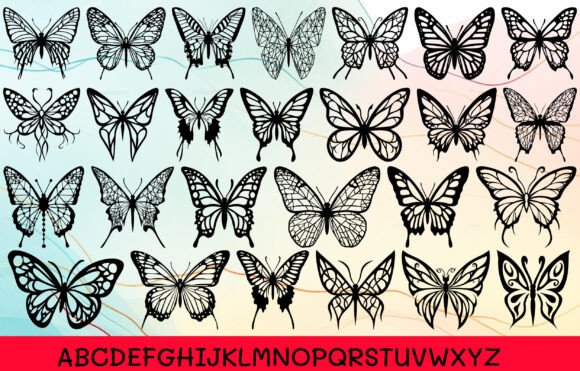
The Magical World of Butterfly Font
Have you ever been in the middle of a design project, and suddenly, you just can’t seem to find the right font? I recall a particularly frustrating experience while working on a client’s wedding invitation. The theme was a whimsical garden party, and I needed a font that would capture the essence of elegance and playfulness. That’s when I stumbled upon the enchanting Butterfly Font. In this article, we’ll dive into the world of this beautiful dingbats font, and explore its features, uses, and alternatives.
A Personal Review: What I Love and What I Think Could Be Improved
- ✨ Unique and Whimsical Designs: The Butterfly Font features 26 unique butterfly-inspired designs, each matching a letter from A to Z. This makes it perfect for creative projects that need a touch of elegance and whimsy.
- 💕 Versatility: It’s ideal for various design projects, including scrapbooking, invitations, and more.
- ⚠️ Limited Character Set: Since it’s a dingbats font, it only includes 26 characters (A-Z), which might limit its use for longer texts or projects requiring a full alphabet.
- 🤔 Requires OpenType Features: To get the most out of this font, you’ll need to use OpenType features, which might require some technical know-how.
The Inspiration Behind Butterfly Font
The Butterfly Font was designed with the intention of capturing the delicate beauty and freedom of butterflies. The designer aimed to create a font that not only represents the aesthetic appeal of these creatures but also brings a sense of joy and whimsy to design projects. The result is a set of 26 unique butterfly-inspired designs that can add a touch of elegance and playfulness to any creative work.
Q: How do I access the butterfly designs for each letter?
A: Since it’s a dingbats font, each letter (A-Z) corresponds to a unique butterfly design. Simply type the letter you want, and it will display the corresponding design.
Q: Can I use this font for my scrapbooking projects?
A: Absolutely! The Butterfly Font is perfect for scrapbooking, adding a personal and whimsical touch to your pages.